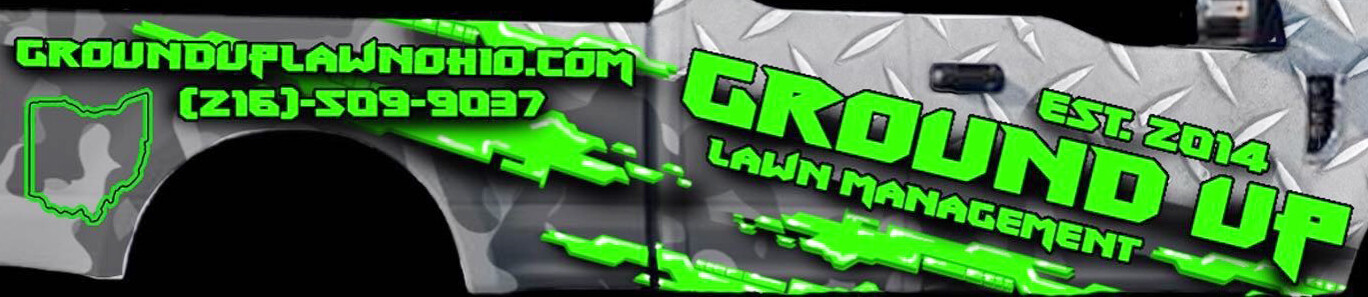
Despite my best efforts I am unable to identify this font. Can anyone point me in the right direction?
I’m not at all sure this is an actual font. In some places it looks like someone may have hacked it together.
Ground-Up Lawn? At first, I wondered if it was a company that grinds up and removes lawns. Doesn’t strike me as an appropriate name for a lawn-care company. Even the typeface they’ve chosen has a grinding, demolition derby sort of look.
Yeah, it’s killing me working on this project (FWIW, this is customer supplied “art” that I have to recreate). There is so much wrong with the design: the inappropriate font (notice the “5” ?), the garish colors, the urban camo, the shredded graphic element, the borderline illegible URL… and the name that evokes images of a zero-turn mower doing donuts, turf flying everywhere! Oh well… I’ll do what the customer wants and I’ll also do a couple less “edgy” designs.
Chances are they were playing off of “from the ground up” with “from the” being sort of understood. Even if that’s the case, it’s an iffy name at best.